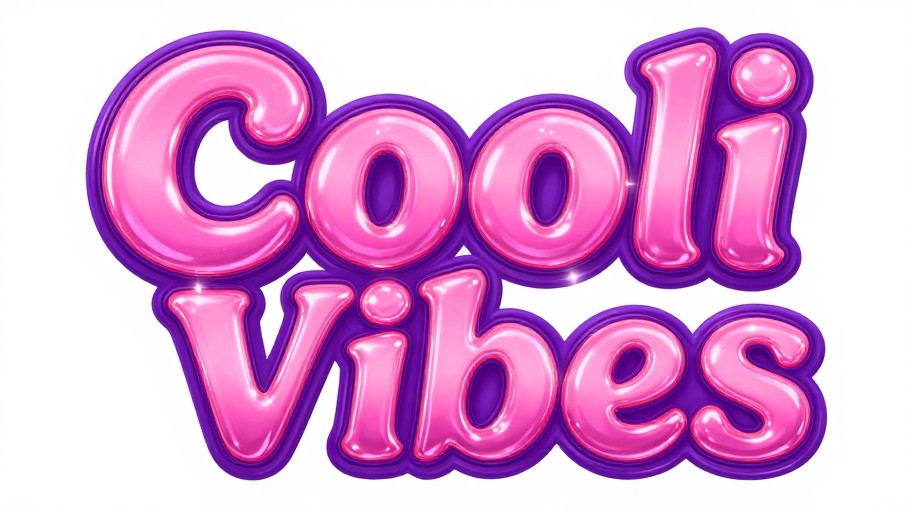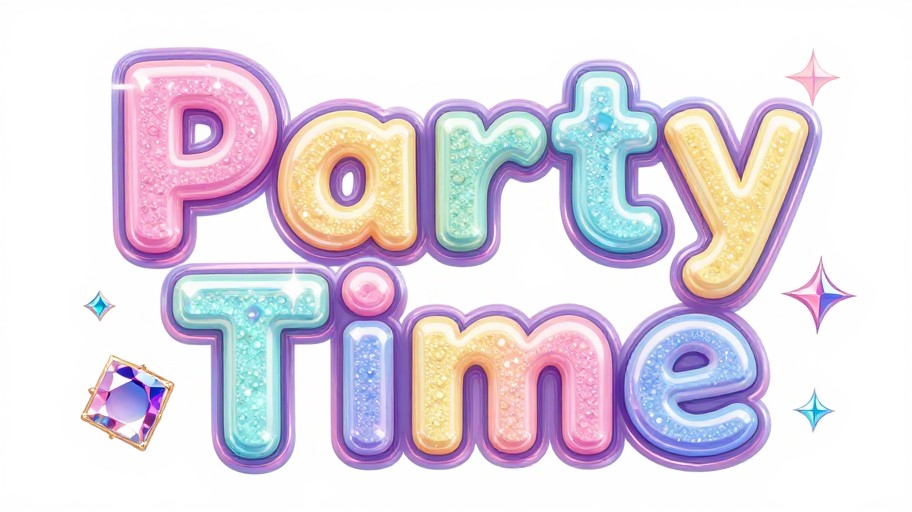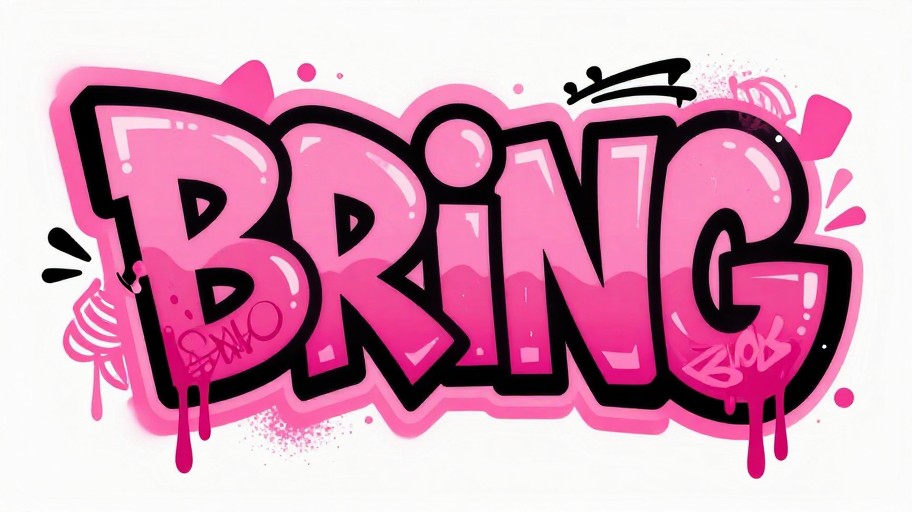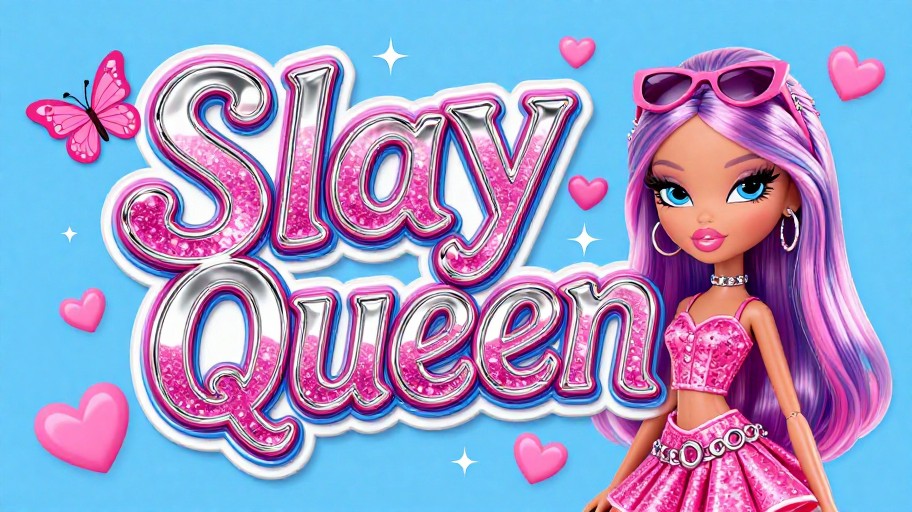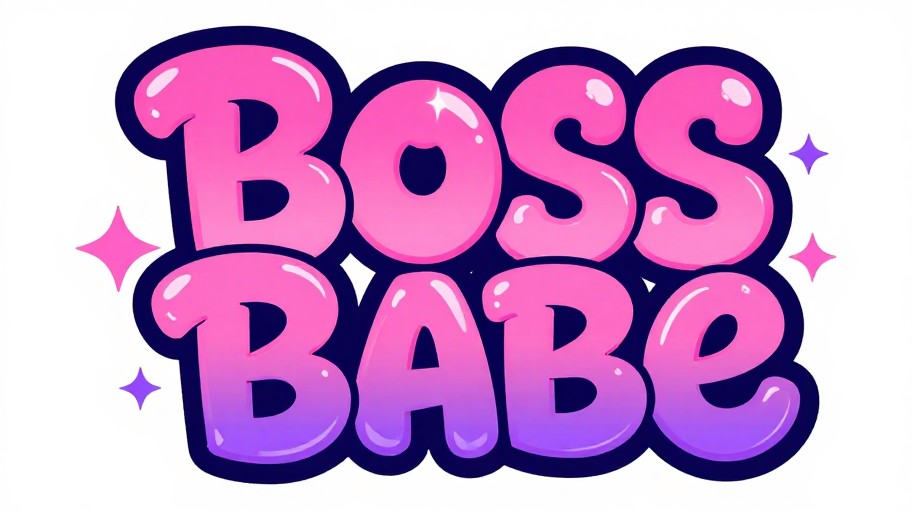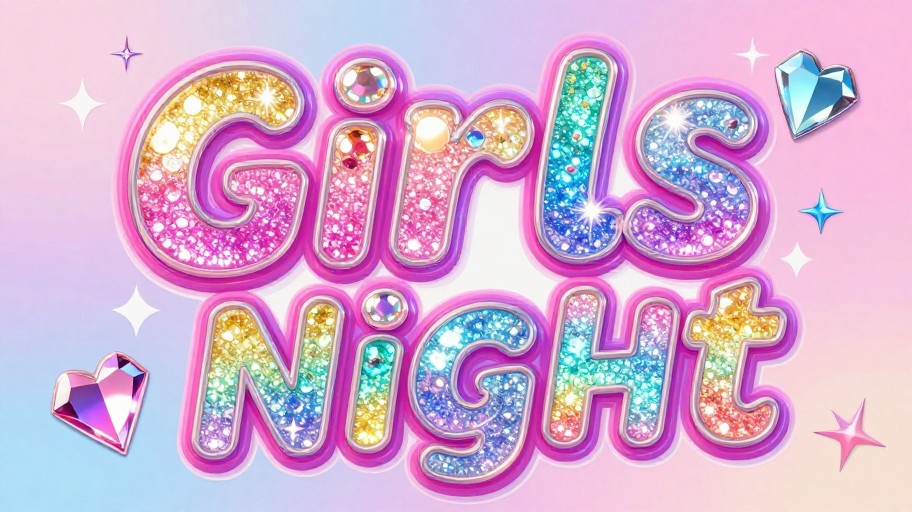
Bratz Font Name Generator
Generate customized Bratz style fonts and logos for your names or texts, perfect for social media, album covers, and more
Generate text in the iconic bold, playful Bratz font style that captures the essence of the beloved doll brand.
Access different Bratz-inspired font styles and effects to find the perfect look for your project.
What is the Bratz font?
The Bratz font is a stylish and iconic typeface inspired by the popular Bratz dolls, known for its bold and playful appearance.